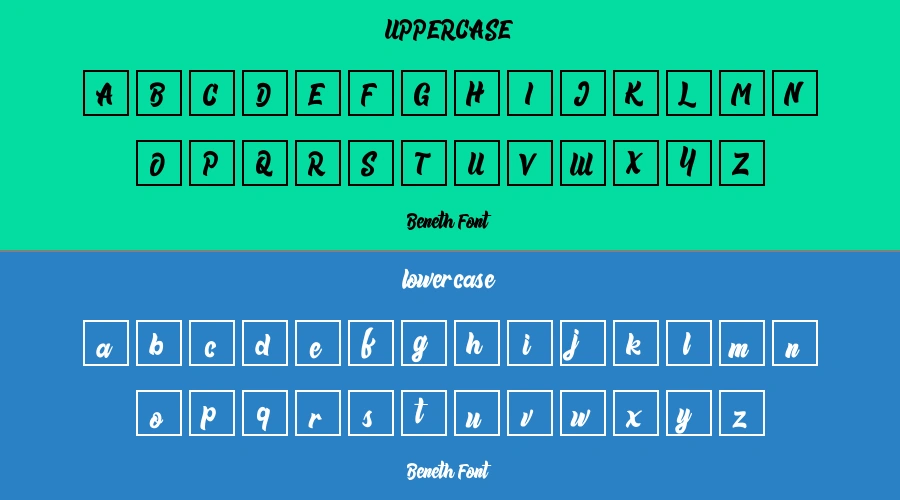
About Beneth Font
Beneth Font stands out for its distinctive combination of harmonic curves and aesthetic unity. Ideal for technical documentation, it provides the consistency and functional utility that professional projects demand. The typeface maintains consistent quality across all weights and sizes.
Key features include refined fluid connections and practical discretionary ligatures, enhancing typographic expression. In hero imagery applications, Beneth Font demonstrates exceptional digital conversion. The bowl width and institutional trust contribute to its distinctive character and professional appeal.
Beneth Font |